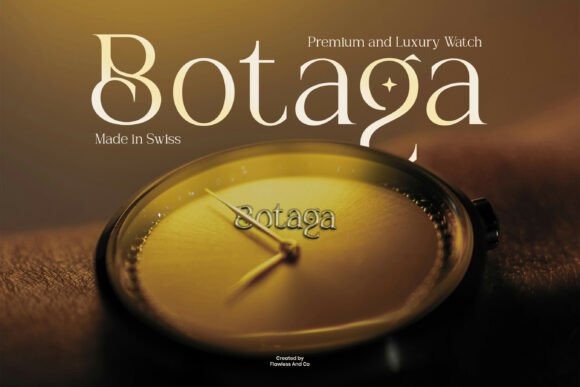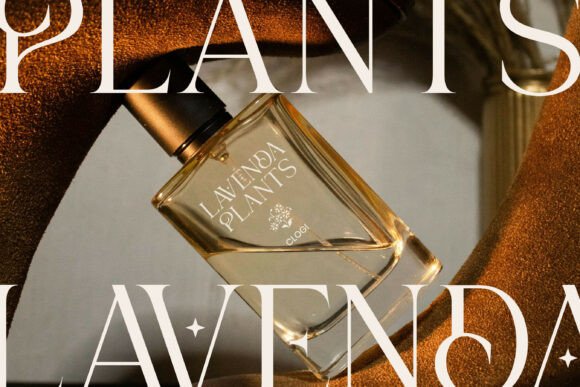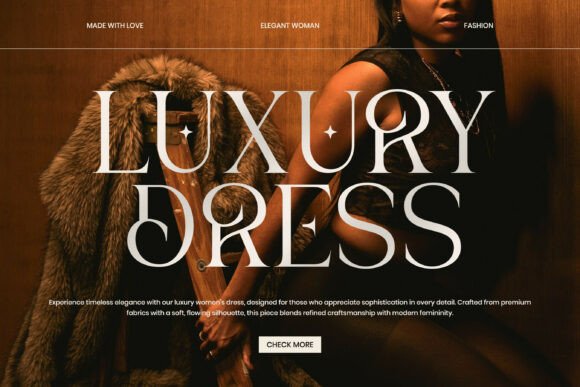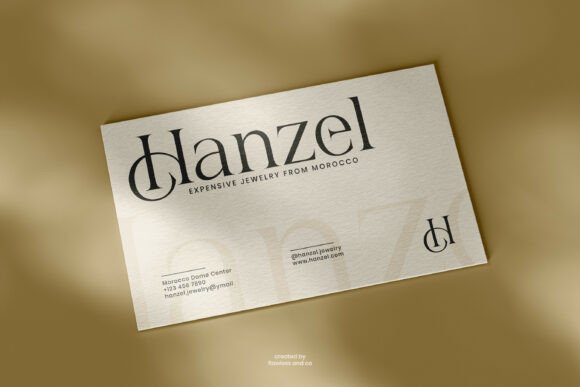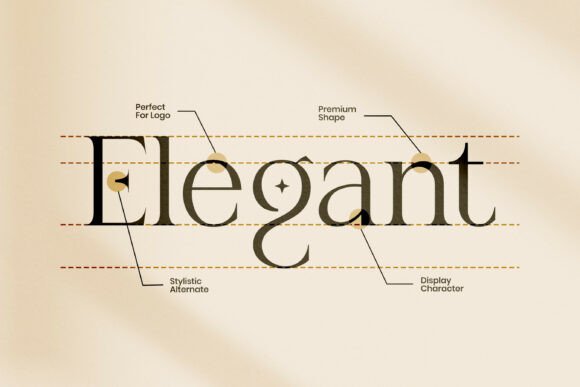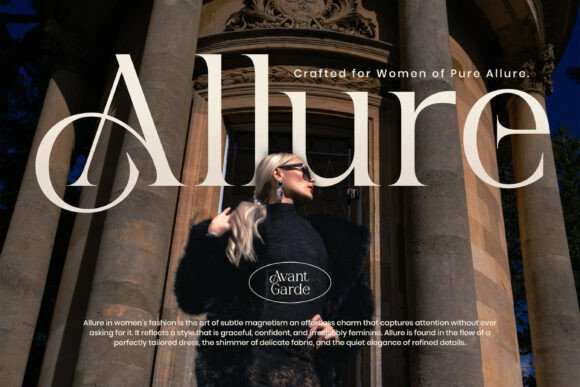
Introduction to Helmorin Font
Have you ever stumbled upon a design that stopped you in your tracks, making you wonder what made it so captivating? For designers, this moment of inspiration can be a game-changer. It’s the perfect opportunity to elevate a project from good to great, and that’s exactly where the Helmorin Font comes in.
This refined luxury serif font is designed to bring a touch of timeless elegance to every creative project, making it an invaluable resource for designers. With its graceful curves, distinctive ligatures, and subtle high-contrast strokes, Helmorin Font embodies sophistication without losing readability. Whether you’re working on high-end branding, fashion visual identities, or editorial layouts, this versatile font is sure to leave a lasting impression.
Key Features of Helmorin Font
- Unique characteristic: elegant and modern design, making it suitable for a wide range of creative projects
Honest Review: Helmorin Font
- ✨ Beautiful, elegant design that’s perfect for luxury or high-end branding projects.
- ✨ Extremely versatile, with a range of weights and styles to suit different design needs.
- ⚠️ Not suitable for bold, edgy, or playful branding projects – it’s more suited to sophisticated, elegant designs.
- ⚠️ May not be as legible at very small font sizes, so be mindful of text legibility in your design.
Overall, I’m thoroughly impressed with the Helmorin Font. Its high quality and versatility make it a valuable addition to any designer’s toolkit. While it may not be the perfect fit for every project, it’s an excellent choice for those seeking a sophisticated, elegant look.
Helmorin Font
Design Resource Guide
The Helmorin Font is a high-quality, versatile design resource perfect for your next creative project. With its elegant and modern design, this font is ideal for various applications, from branding and marketing materials to digital products and presentations.
Tips for Getting the Most Out of Helmorin Font
1. Use the font in combination with a transparent background to create a modern and sleek design.
2. Experiment with different font sizes and styles to add visual interest to your design.
3. Use the font to create a consistent brand identity across your marketing materials and digital products.
The Helmorin Font is ideal for various design projects, including:
* Branding and marketing materials, such as logos, business cards, and brochures.
* Digital products, such as ebooks, courses, and software interfaces.
* Presentations, such as PowerPoint and Keynote decks.
* Documents, such as reports, proposals, and resumes.